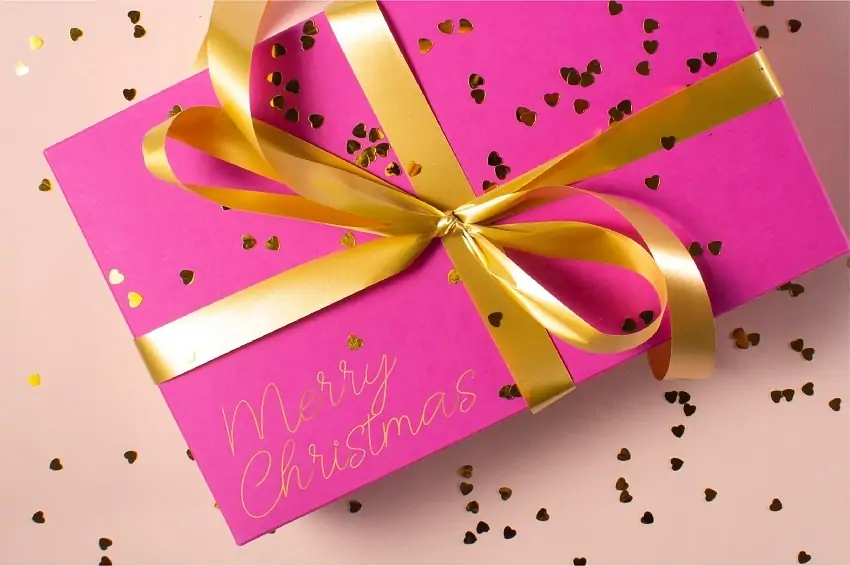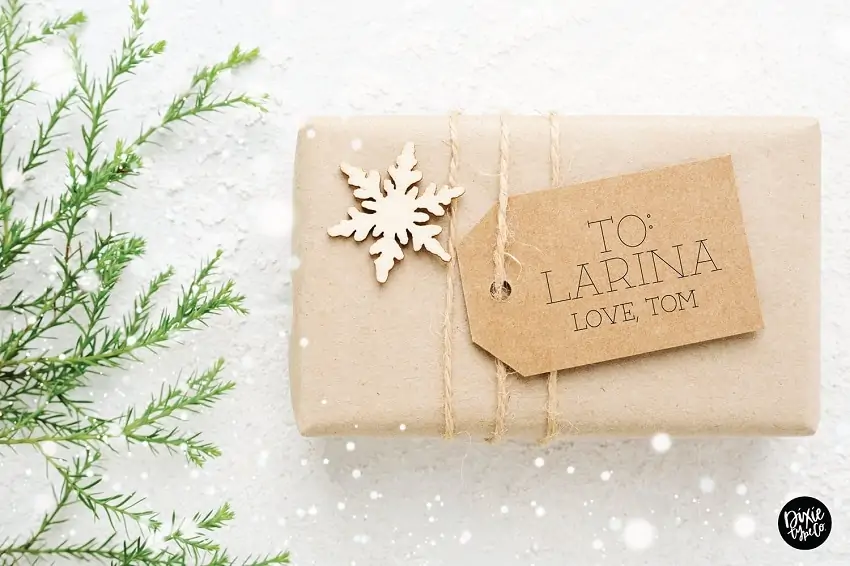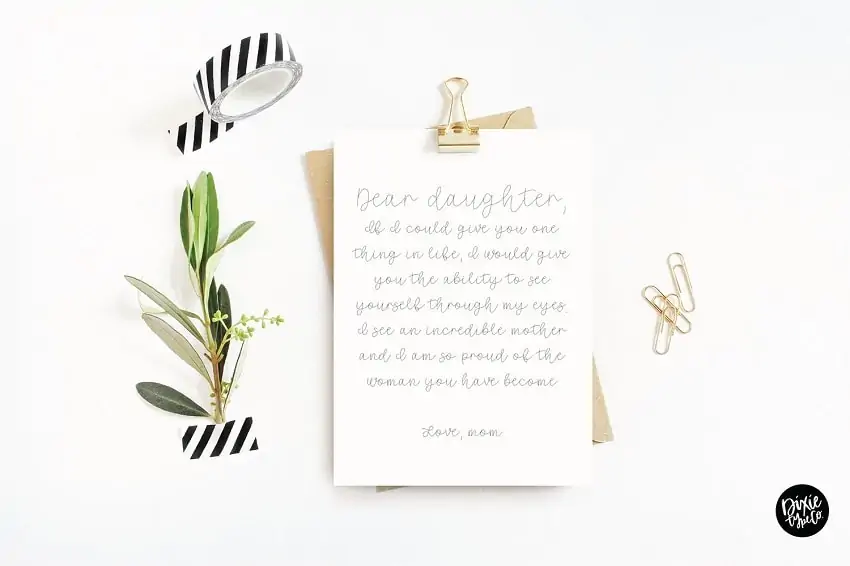
Are you looking for writing fonts for Cricut? You will love this list of the best single-line fonts, including cursive, script, and calligraphy. Download the Cricut writing fonts to make pen and foil quill projects with a Maker, Joy, or Explore machine.
I love using Cricut writing fonts to add a handwritten touch to my crafts. There are so many ways to use writing fonts, from addressing envelopes to making gift tags, invitations, and greeting cards.
I am kind of obsessed with them and spent days looking for the BEST writing fonts for Cricut! I’m not even kidding when I tell you that I downloaded so many fonts, only to realize they don’t look the way I want.
I wanted “actual” writing fonts, not the ones that look like outlines or need a lot of work and end up looking messy.
The best thing about the writing fonts in this blog post is that they are super easy to use. You can write cute cursive or classic calligraphy letters with these fonts.
These single-line fonts for Cricut are designed explicitly for pen and foil quill projects. You just have to load them to Design Space and start creating.
I have done all the research for you so that you can design like a pro. No additional steps or confusion are involved. Yay!
Best Writing Fonts for Cricut – Our Top Picks
- Best Overall – Dear Agatha
- Most Popular – Pinsetter Line
- Best Cursive – Boisterous Sketch
- Best Quirky – Muggsy Sketch
- Best Skinny – Succuline
- Best Tall – Garruline
- Best Cute – Rainy Winter
- Best Script & Sans Duo – That Girl
- Best Handwritten – Oh Wonder
- Best Farmhouse – Barn Acre
- Best for Invitations – Cottage Sketch
- Best for Weddings – Honeymoon Sketch
- Best Thin – Shiplap Sketch
- Best for Christmas – Happy Holidays
- Best Elegant – Christmas Card
- Best for Holidays – Holiday Sparkle
- Best for Halloween – Black Widow
- Best Script – Flannel Shirt
- Best Cursive – Sahara Sketch
Best Writing fonts for Cricut
1. Dear Agatha
Best Overall Writing Font for Cricut
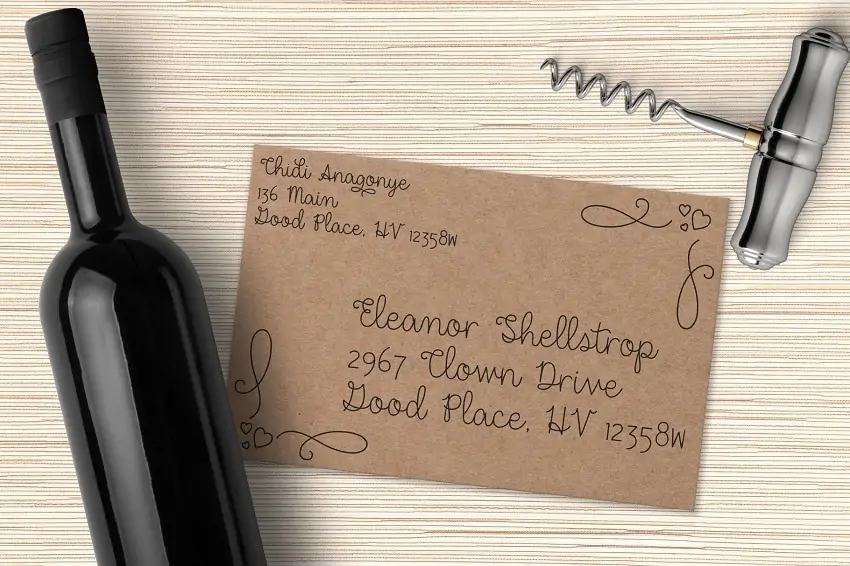
Dear Agatha is hands down the best writing font that you can use with Cricut Design Space! What’s fantastic is that it is a font combination.
So you get two matching fonts (cursive handwriting and sans) that work seamlessly with each other. Also, the bonus doodles in the font make it a breeze to create stunning crafts.
2. Pinsetter Line
Most Popular Single Line Font for Cricut
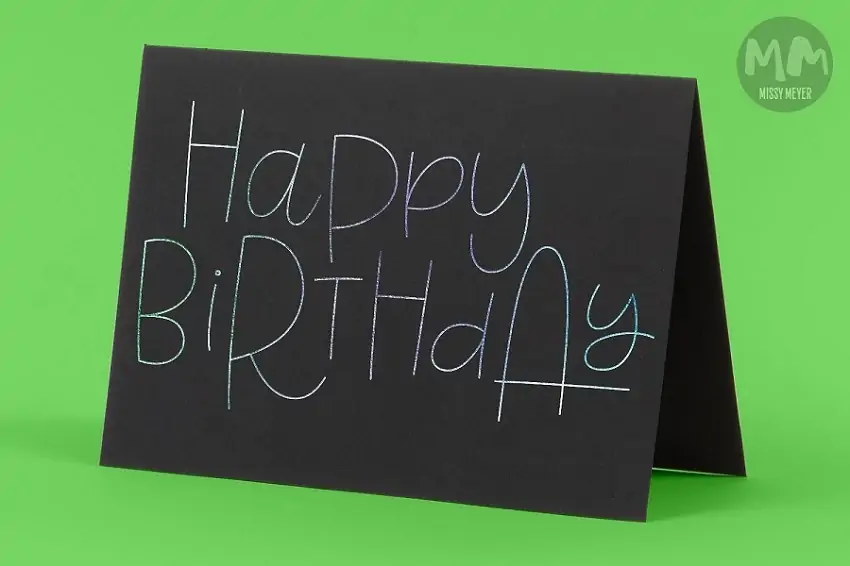
The Pinsetter font has a legendary following among crafters. So thanks to Designer Missy Meyer for creating a single-line version – Pinsetter Line. This fun font with a dancing baseline is perfect for creating cute greeting cards and invitations.
3. Boisterous Sketch
Best Cursive Writing Font for Cricut
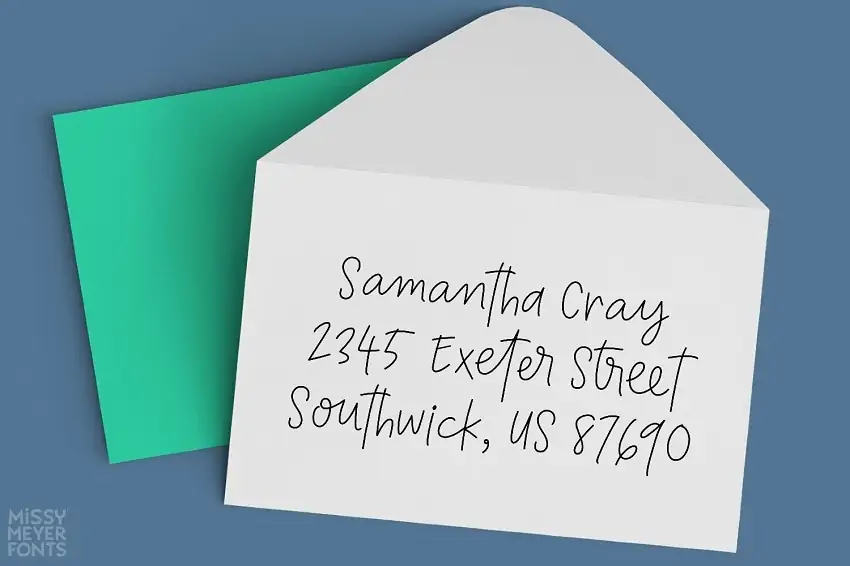
Boisterous Sketch is the only cursive writing font you will ever need! This modern wedding font will add a touch of hand-lettered magic for addressing envelopes and making invitations. Moreover, the font looks equally cute on home organization labels and gift tags.
4. Muggsy Sketch
Best Quirky Writing Font
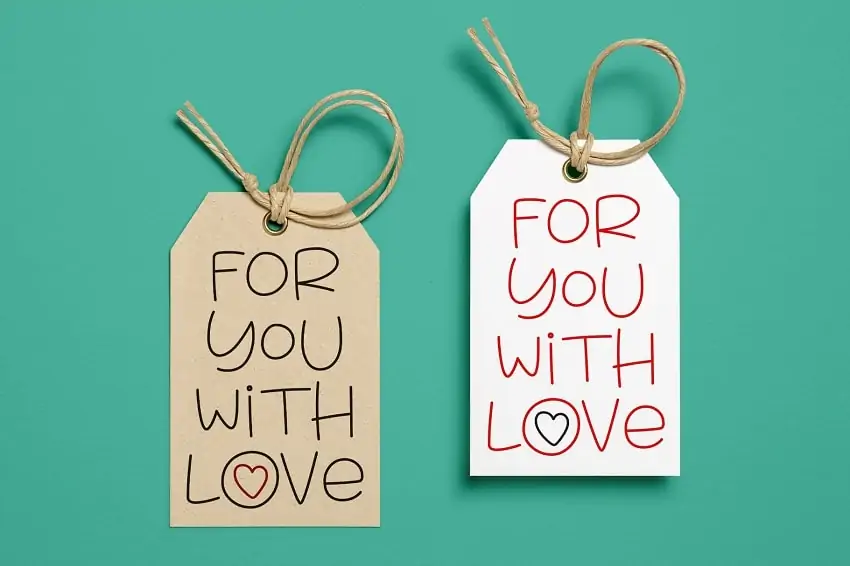
A quirky font that’s perfect for all kids’ party crafts is the amazing Muggsy Sketch font. This bouncy font has got you covered; from birthday party invitations to gift tags for special occasions, your crafts are guaranteed to stand out.
5. Succuline
Best Skinny Writing Font for Cricut
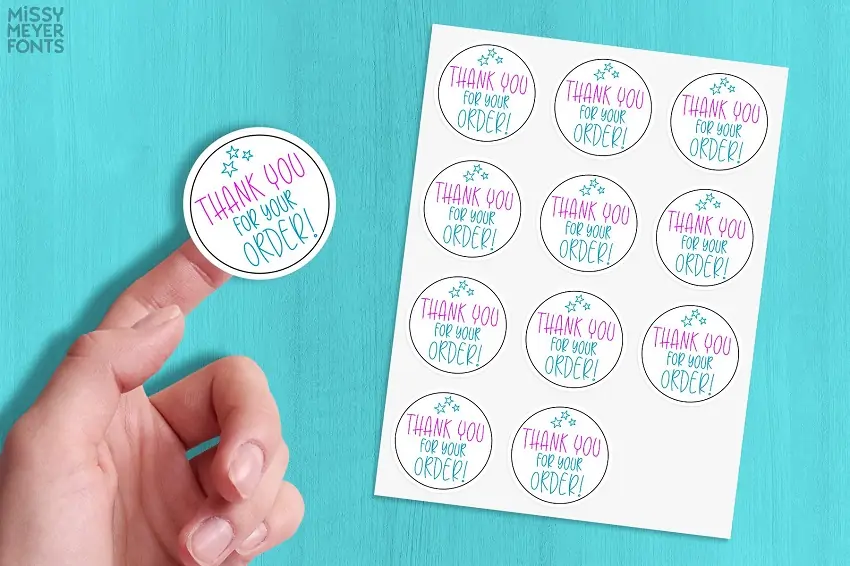
The best tall and skinny writing font to use with Cricut is the Succuline single-line font. The bouncy and playful letters in the font add a lovely touch to your Cricut sketch pen projects. Make stickers, labels, and foil quill invitations everyone will obsess over.
6. Garruline
Best Tall Writing Font for Cricut
Do you want a trendy font that’s perfect for every Cricut sketch pen project? You are going to love the Garruline writing font. Additionally, you can mix and match the upper and lower case letters in this serif font to create unique designs.
7. Rainy Winter
Best Cute Writing Font for Cricut
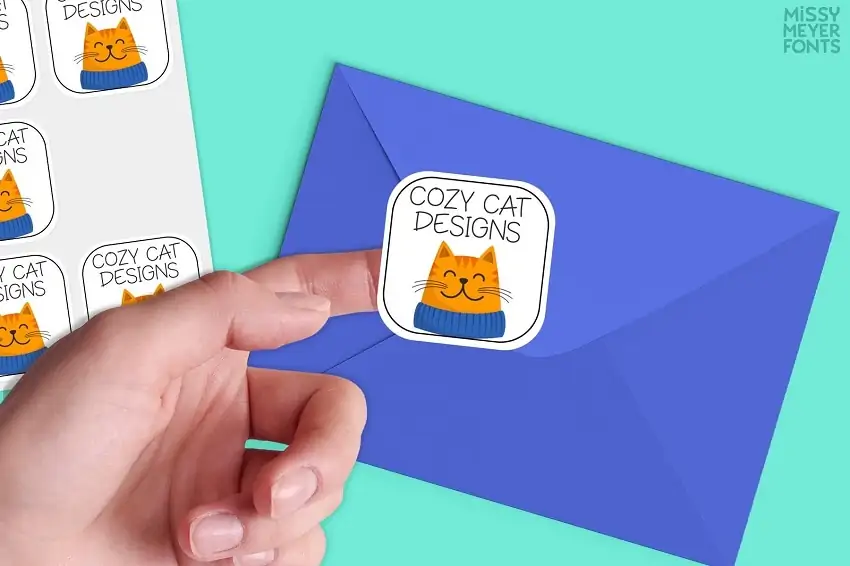
An amazing writing font for Cricut that will instantly up the wow factor of your crafts is Rainy Winterโfeaturing cute letters that put a smile on anyone who receives your creations. Additionally, you can make fun stickers, labels, greeting cards, and many more with this font.
8. That Girl
Best Script & Sans Writing Font Duo for Cricut
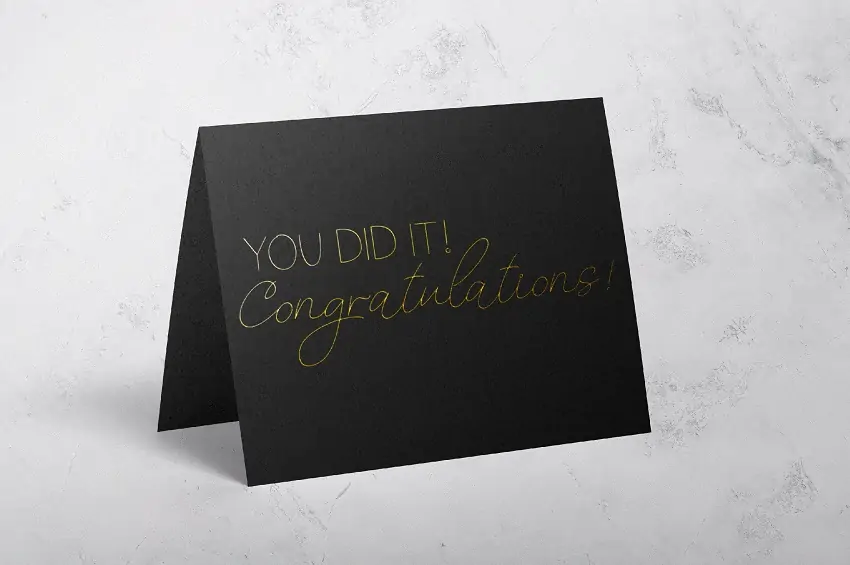
Another irresistible writing font combination is the That Girl font duo. The pairing features a handwritten script font with a stylish sans serif font.
Also, this font is perfect for adding a touch of elegance to greeting cards and invitations for birthdays, Graduations, Christmas, and many more.
9. Oh Wonder